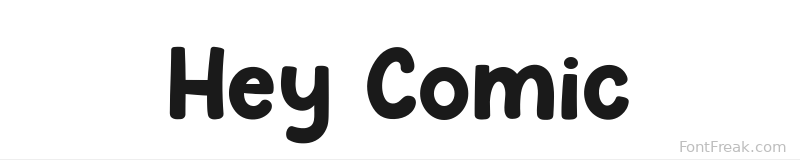
Hey Comic
The Hey Comic font by Syaf Rizal is a playful and engaging display typeface that captures the essence of fun and creativity. As a freeware font, it offers a unique opportunity for designers to incorporate a lighthearted touch into their projects without any licensing concerns. This font falls into the category of comic and handwritten styles, characterized by its bold, rounded letterforms that exude a sense of warmth and approachability. The stroke weight is consistent, providing a balanced appearance that enhances legibility while maintaining a whimsical flair.
Visually, Hey Comic features a smooth, slightly playful aesthetic with minimal contrast, which contributes to its inviting nature. The letters are well-spaced, allowing for easy reading and making it suitable for various applications. Its cartoonish elements make it perfect for use in contexts that require an informal touch, such as children's book covers, animated series, greeting cards, and social media graphics. Graphic designers and content creators will find this font particularly appealing for crafting engaging designs that resonate with a younger audience or those young at heart.
Small business owners can also leverage the Hey Comic font in branding materials, such as logos and promotional flyers, where a fun and memorable impression is essential. The font stands out due to its versatility and charm, making it a favorite for projects that seek to convey joy and creativity. With the Hey Comic font free download available, it’s an excellent choice for anyone looking to add a distinctive and lively element to their design toolkit. Embrace the playful spirit of this font and let your creativity flow, knowing you have a unique asset at your disposal.